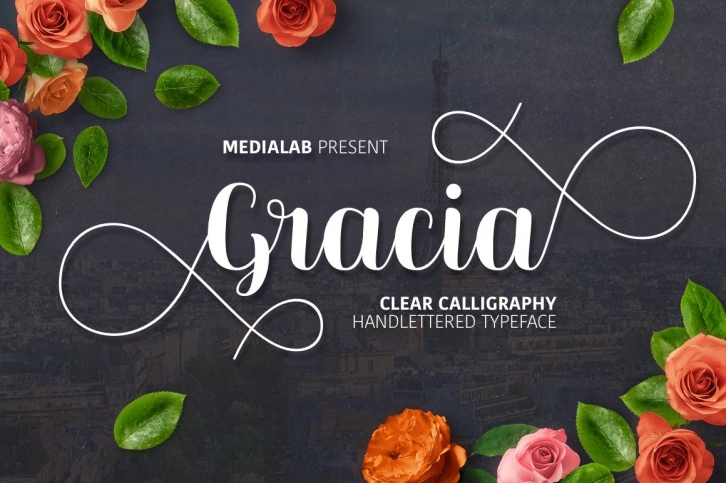
Beautiful ms. Gracia - a new clear calligraphy font. Very suitable for greeting cards, branding materials, business cards, quotes, posters, and more!
• Basic Latin A-Z and a-z
• Support ALL European Languages a á ă â ä à ā Ä… Ã¥ ã æ č ç Ä‹ ð ď Ä‘ ÄŸ Ä£ Å‹ ø Å“ þ Å™ ß
• Symbols
• Alternates
• Initial and Final forms
• 420+ Glyphs
• PUA Encode